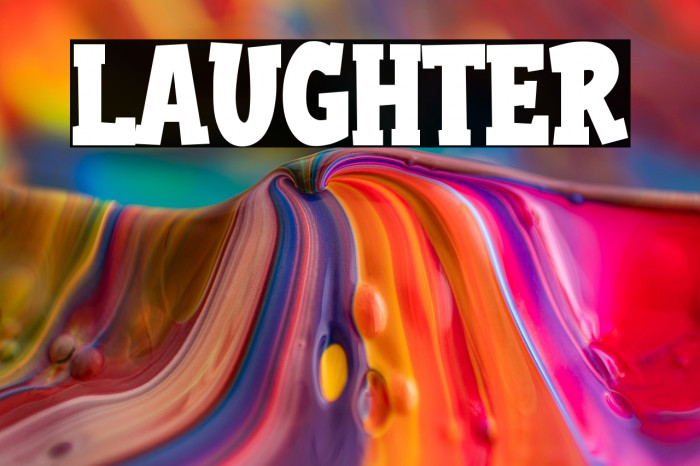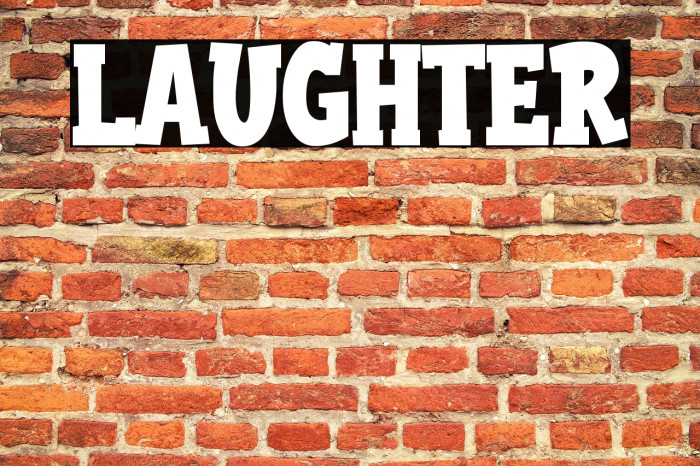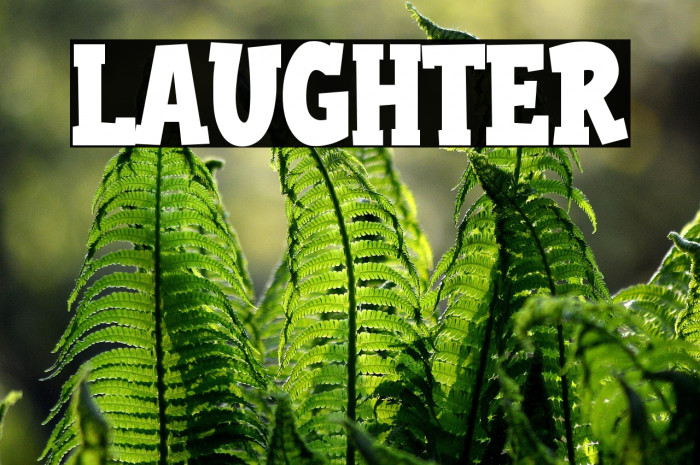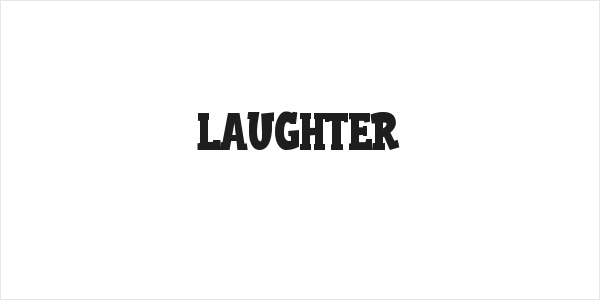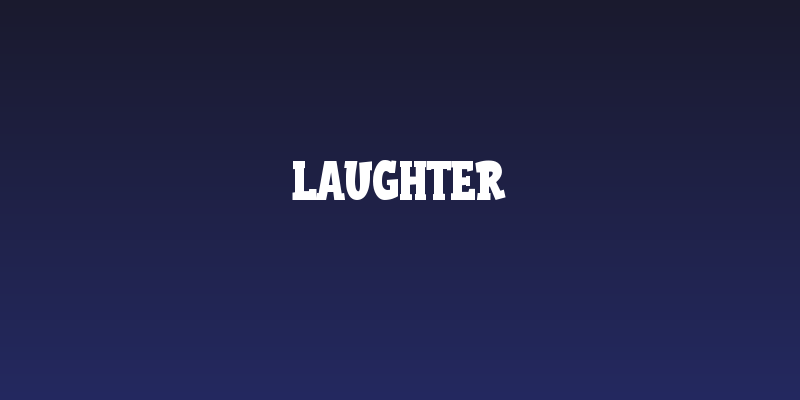
LAUGHTER Font
LAUGHTER Description
A bold, playful display typeface with exaggerated serifs, heavy strokes, and quirky, uneven letterforms that give it a whimsical and energetic appearance.
Overall StyleDecorative, Playful, Whimsical
Use CaseHeadlines, Posters, Logos, ChildrenÒ€ℒs materials
Proposed ProjectsChildrenÒ€ℒs books, posters, party invitations, comic titles, branding for fun products.